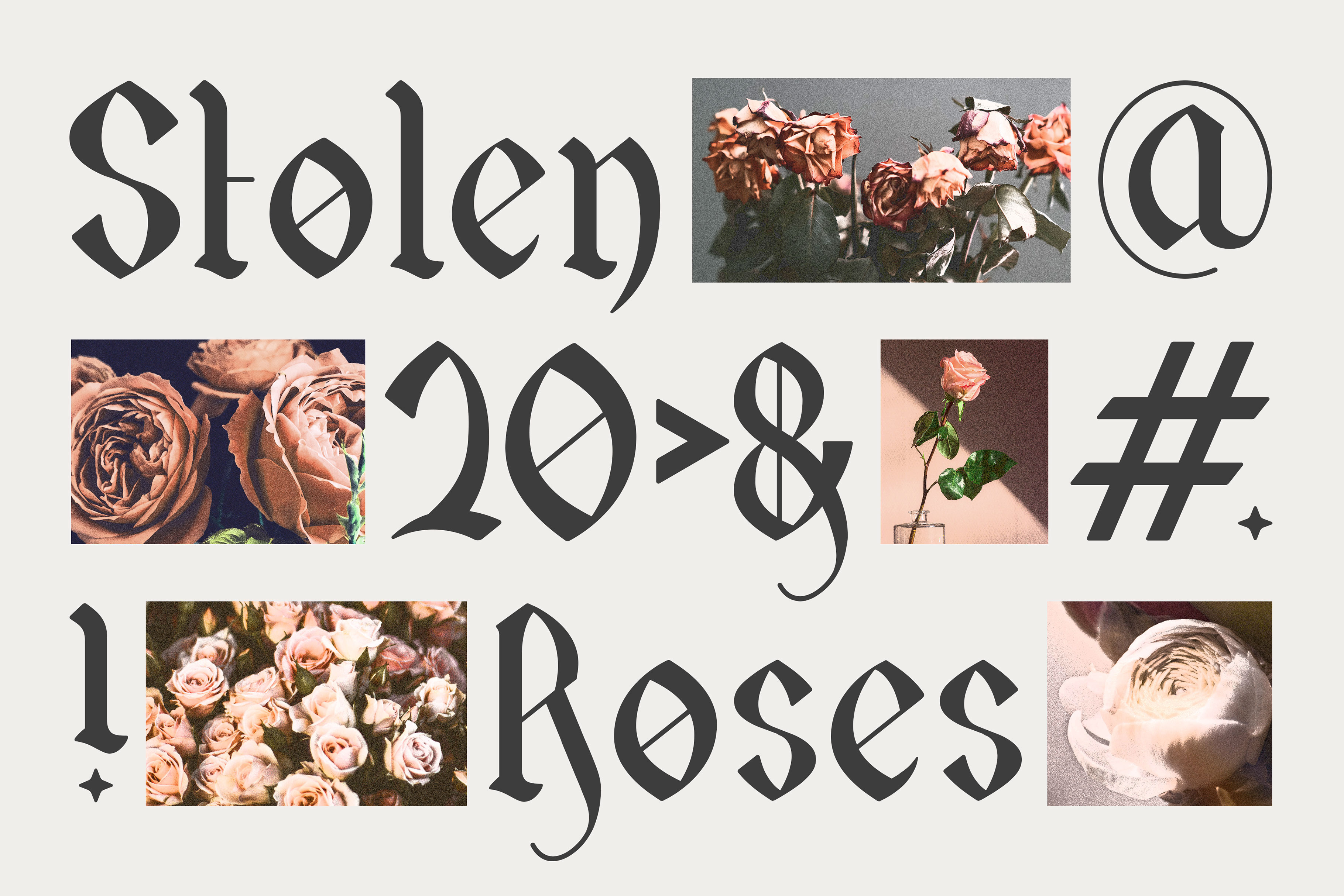
Stolen Roses Font + BONUS FONT
Stolen Roses Font
Handcrafted serif font inspired by whisky bottles, german type and wilting roses.
Stolen Roses is best suited to statement type so I've included a bonus font, Langston Sans Serif to compliment the complexity of Stolen Roses.